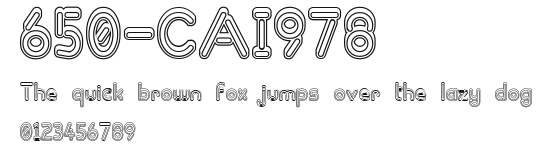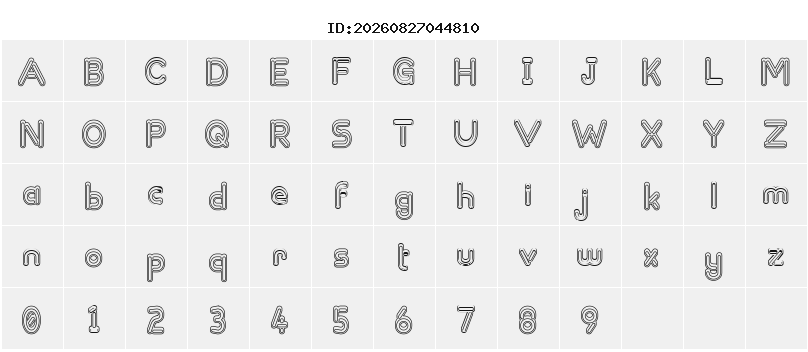
650-CAI978 Preview
• Font Name: 650-CAI978
• Full Font Name: 650-CAI978
About 650-CAI978.ttf
650-CAI978.ttf is a modern, elegant sans-serif font designed for ultimate readability and visual harmony. Perfect for branding, headlines, web design, and print materials.